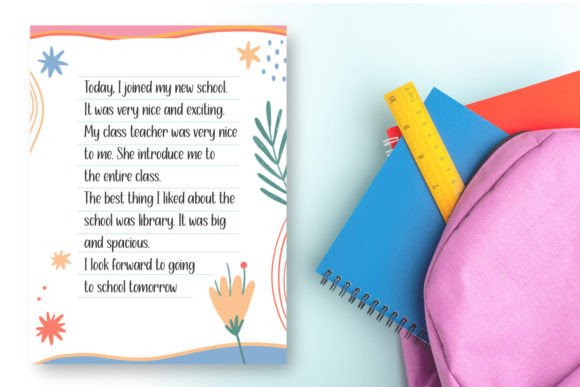
Childish Font
introducing
CHILDISH
– handwritten notes font –
CHILDISH is a simple font. It is great for branding, notes, quotes, logos, t-shirt designs, tote bag designs, cards, banners, social media, and more.